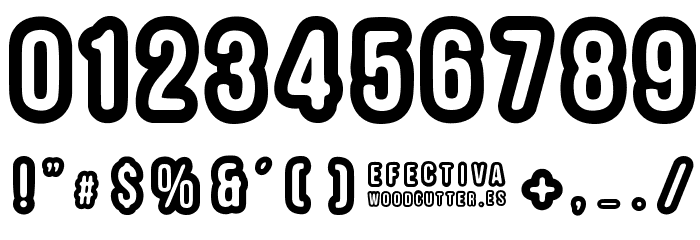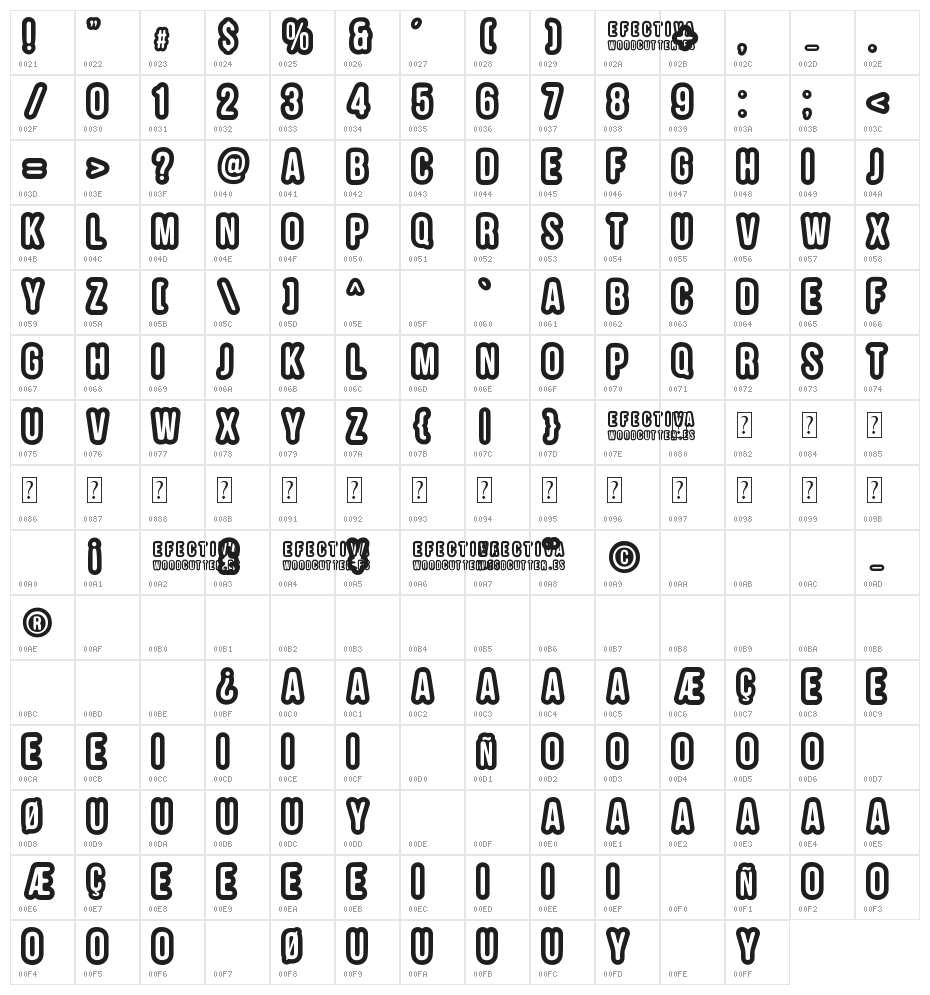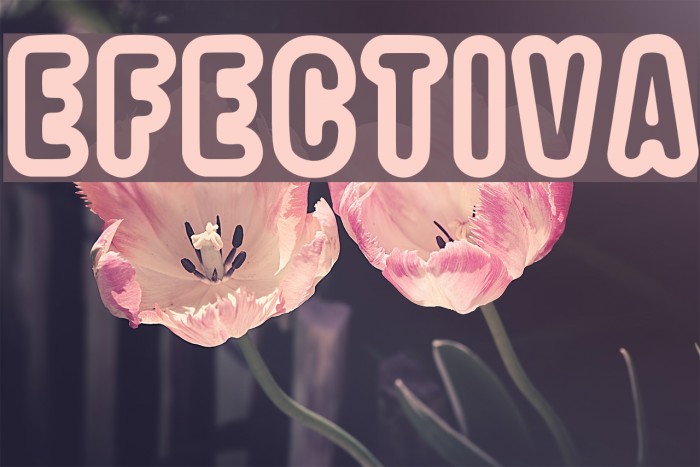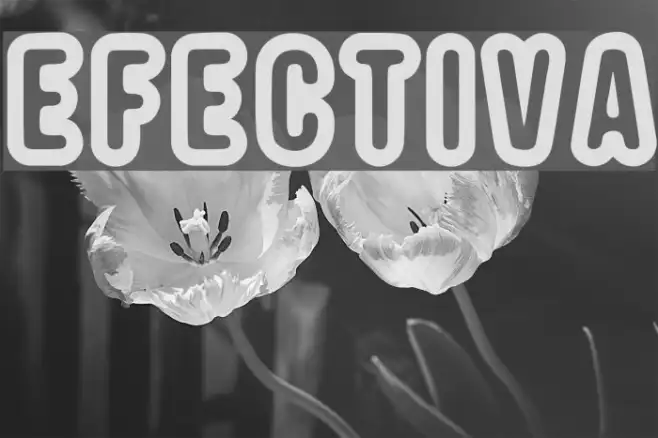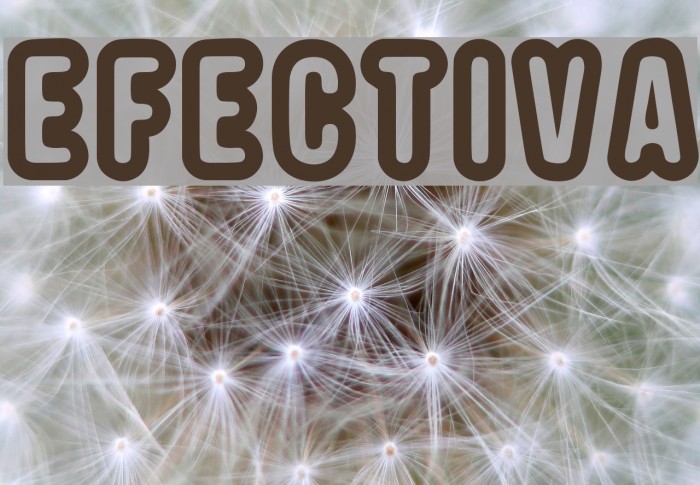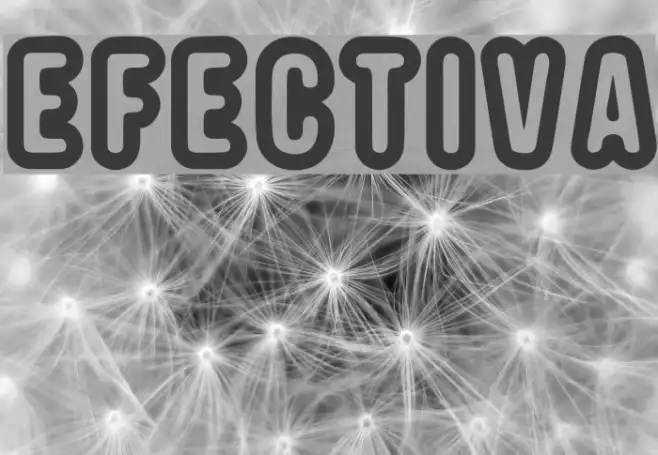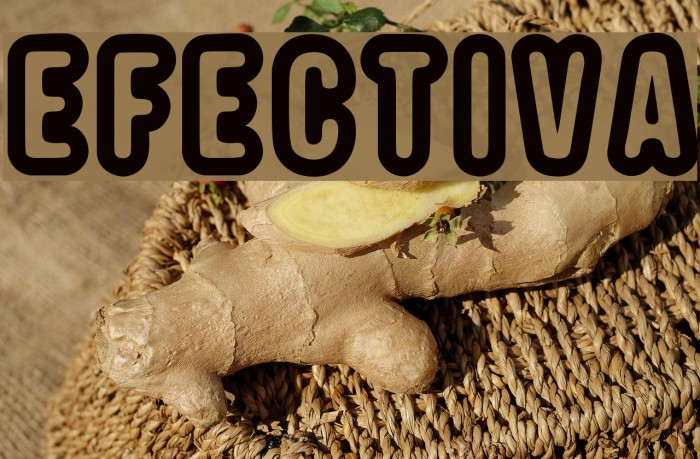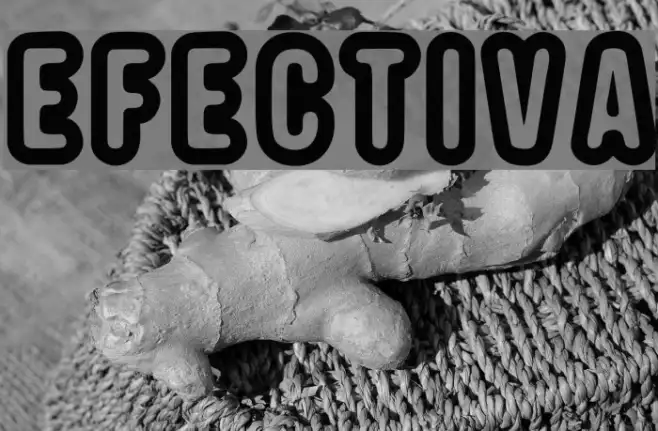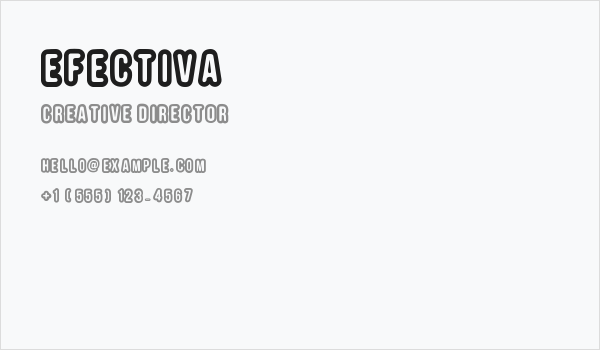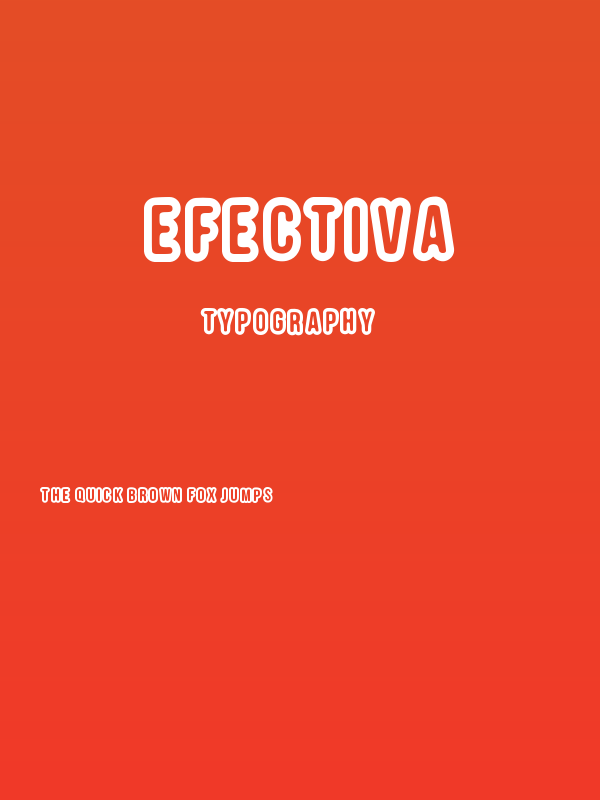
EFECTIVA Font
EFECTIVA Description
This font features bold, rounded characters with a strong, playful presence. Each letter is outlined with a thick black border, creating a striking contrast that enhances readability. The characters are uniformly wide, giving the font a consistent and cohesive look. The rounded edges contribute to a friendly and approachable aesthetic, making it suitable for a variety of creative applications. The numbers and special characters maintain the same bold style, ensuring a harmonious appearance across all text elements. This font's design is both modern and versatile, ideal for projects that require a bold statement.
| Proposed Projects | Ideal for branding, posters, children's books, and playful graphic designs. |